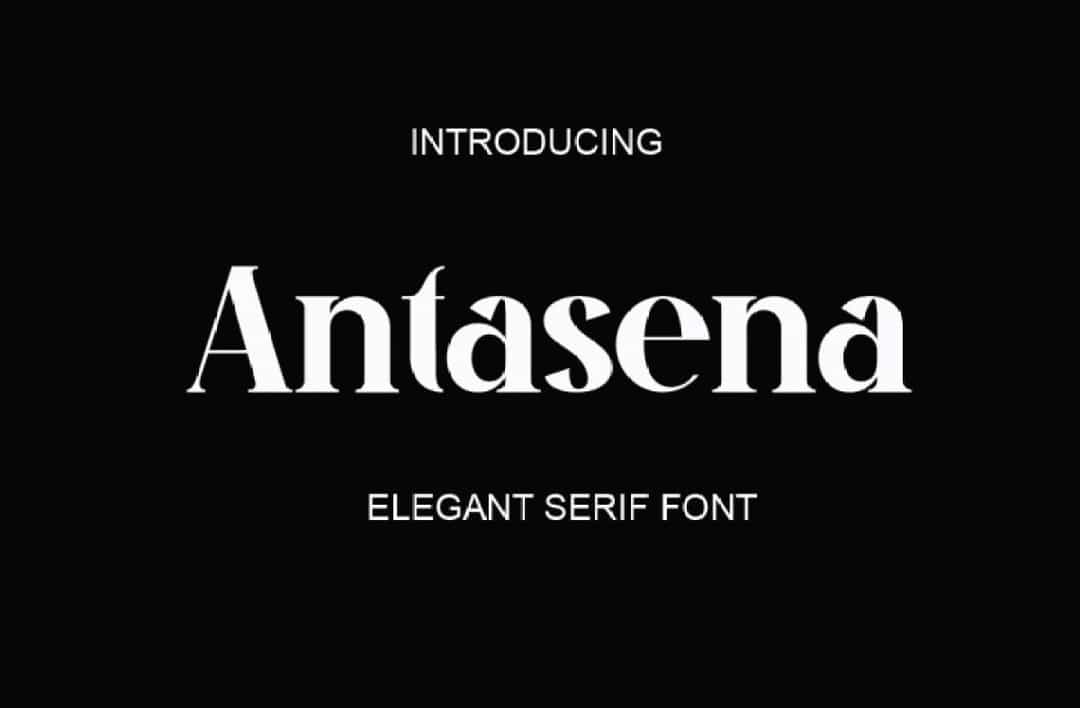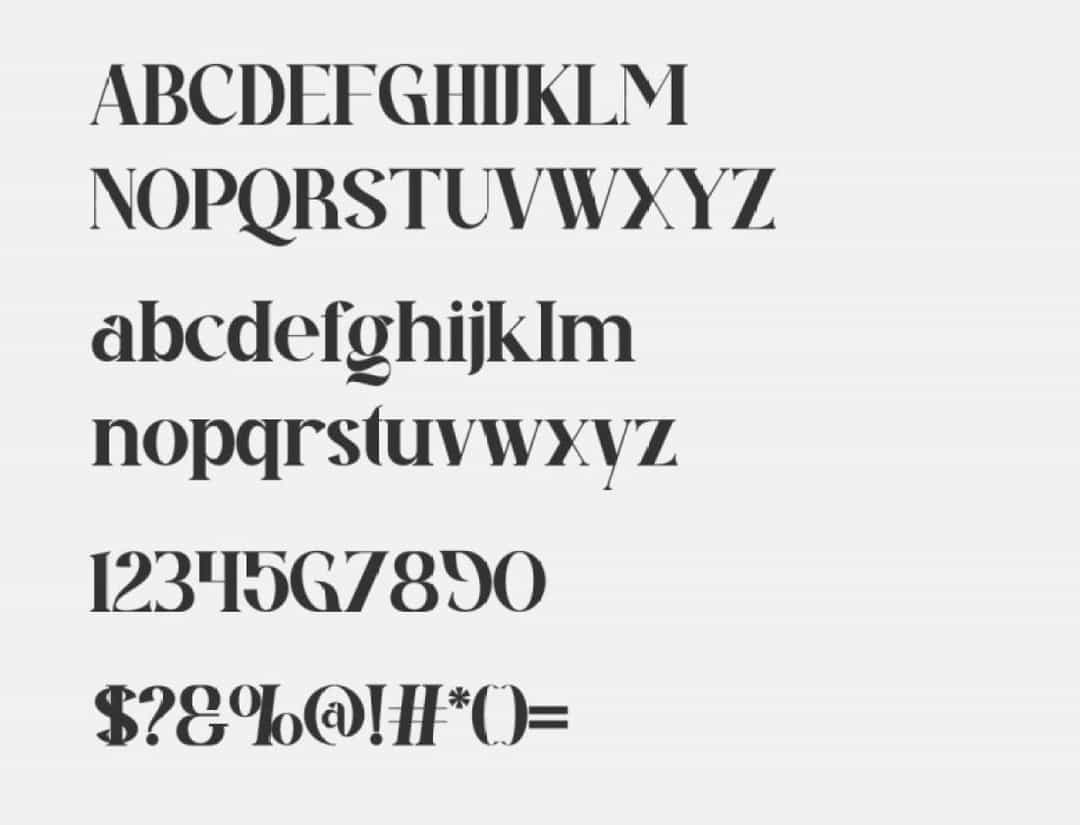
Antasena is a elegant and strong serif font. Adore its very appropriate for any design and apply it for creating nice wedding invitations, beautiful artworks for paper, interesting posts for social networks and more!